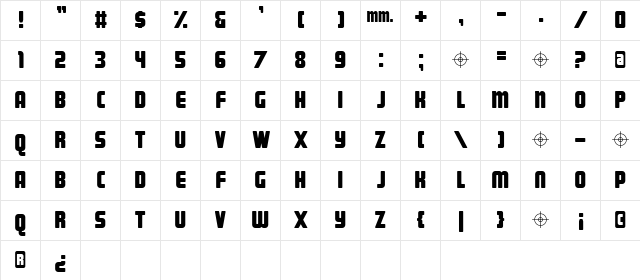
Magnum Regular
Design Context for Magnum Typeface
Magnum is a composed and adaptable typeface that performs quietly and consistently across a wide range of design contexts.